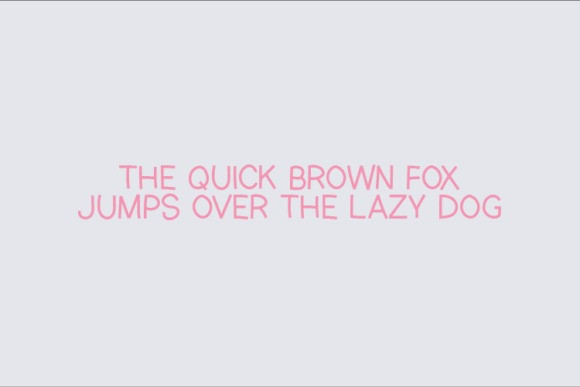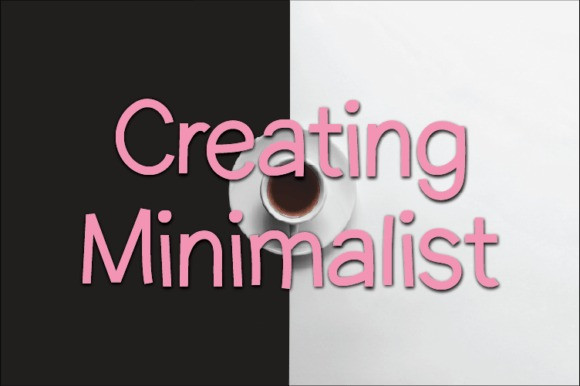
Creating Minimalist Font
Creating Minimalist Display Font is an interesting and unique display font perfect for quotes, notes, T-shirts, and many more. Fall in love with its incredibly versatile style, and use it to create spectacular designs!